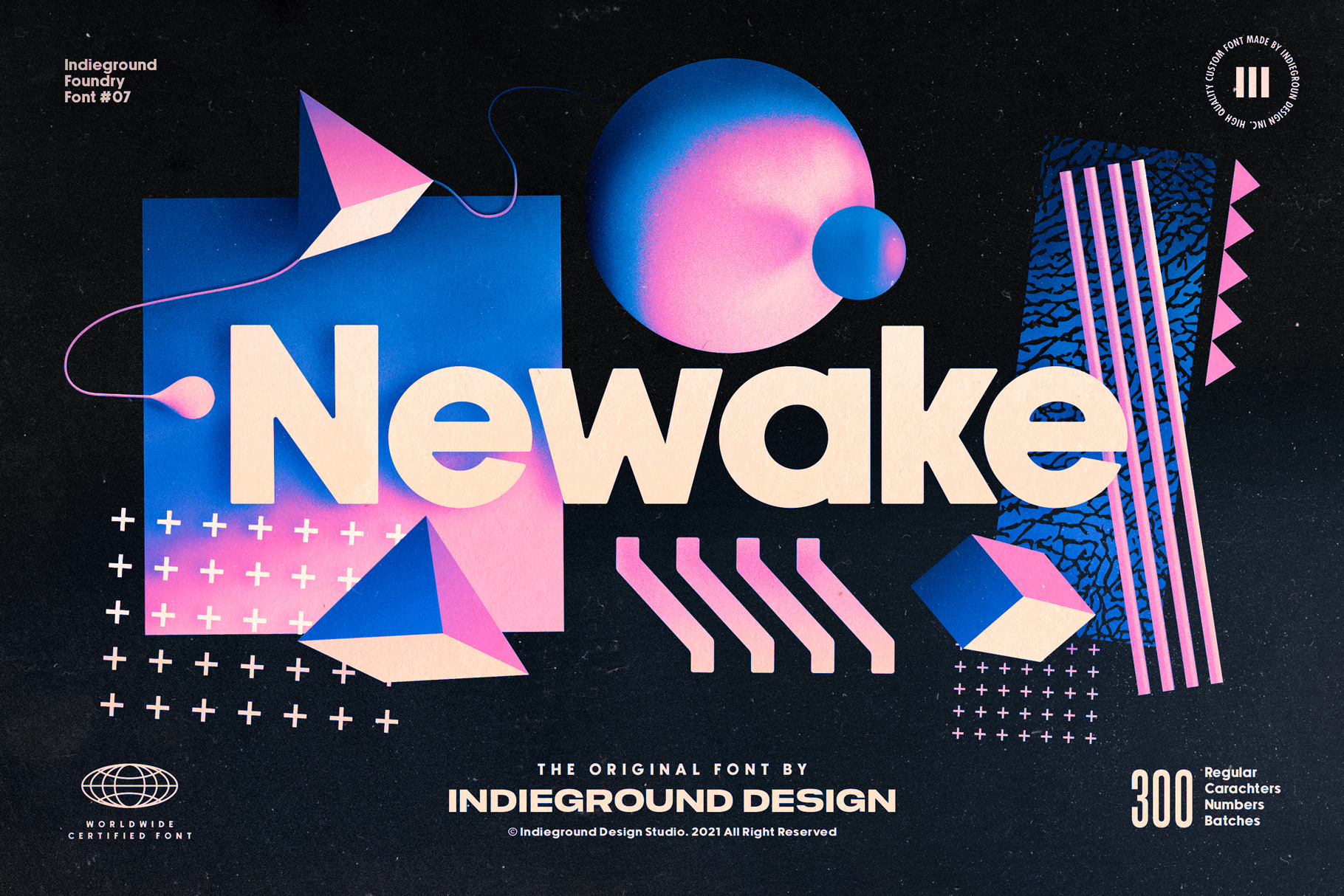
Newake Font
NEW UPDATE! 160+ New Characters We added the most popular letters from Central & Western Europe Alphabets and other special characters.
Newake Font by Indieground This sans-serif font made by the Indieground Team is perfect for titles, logos, editorial design, packaging and web design. It fits every graphic design or typography-related project. The slightly rounded corners of the letters give an elegant line to your text and quotes. A font with a minimal atmosphere that will give a cool style and weight to all your artistic compositions. This regular commercial version includes the full characters set shown in the preview.